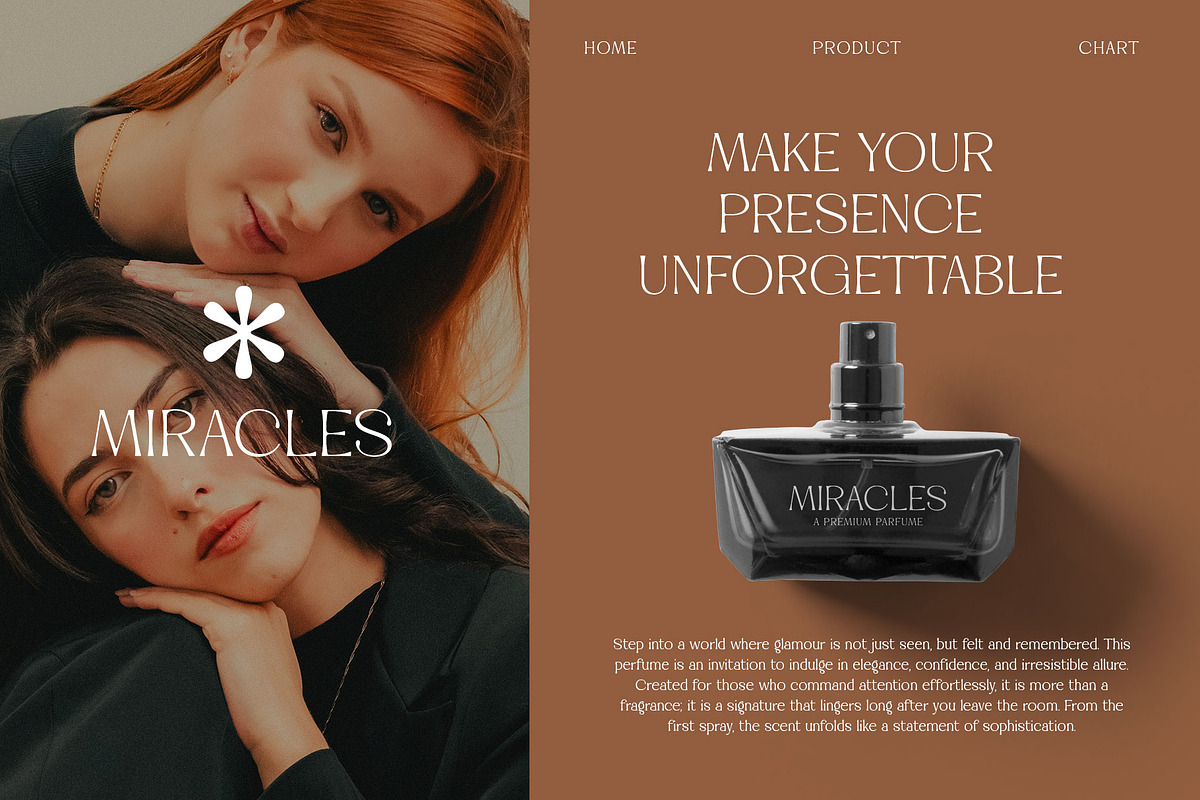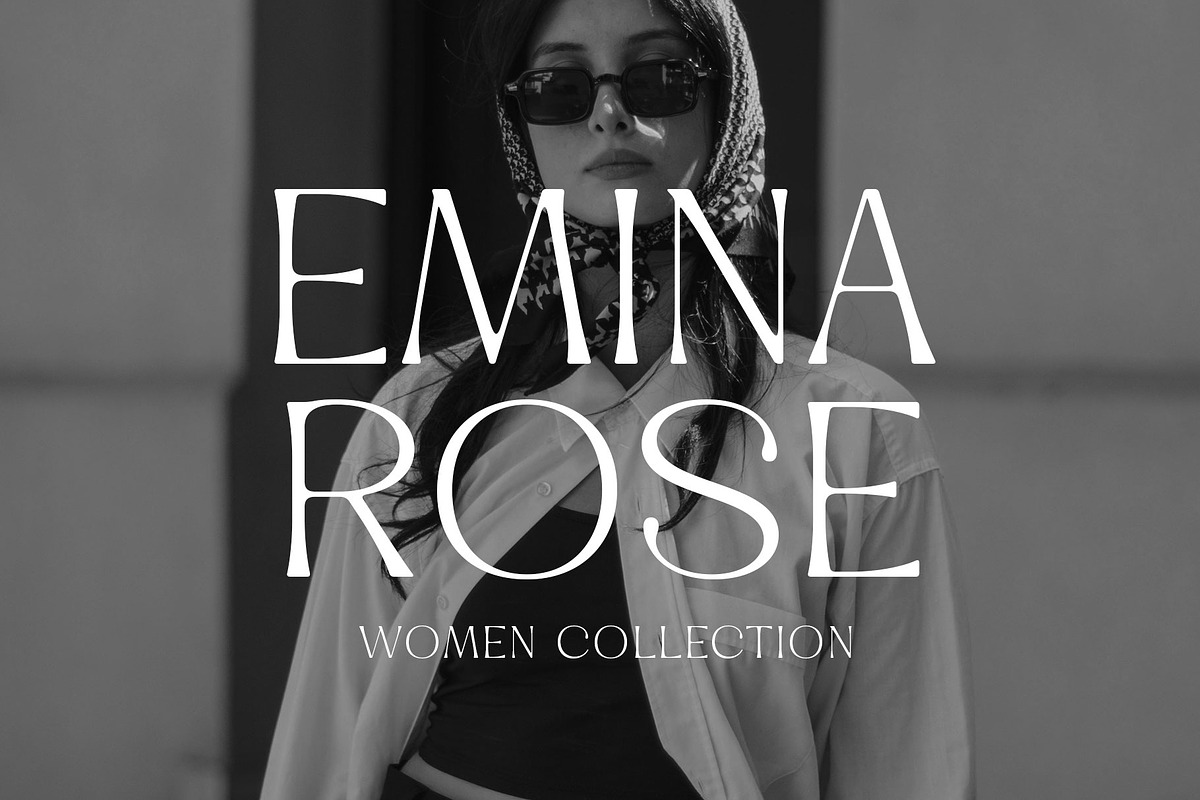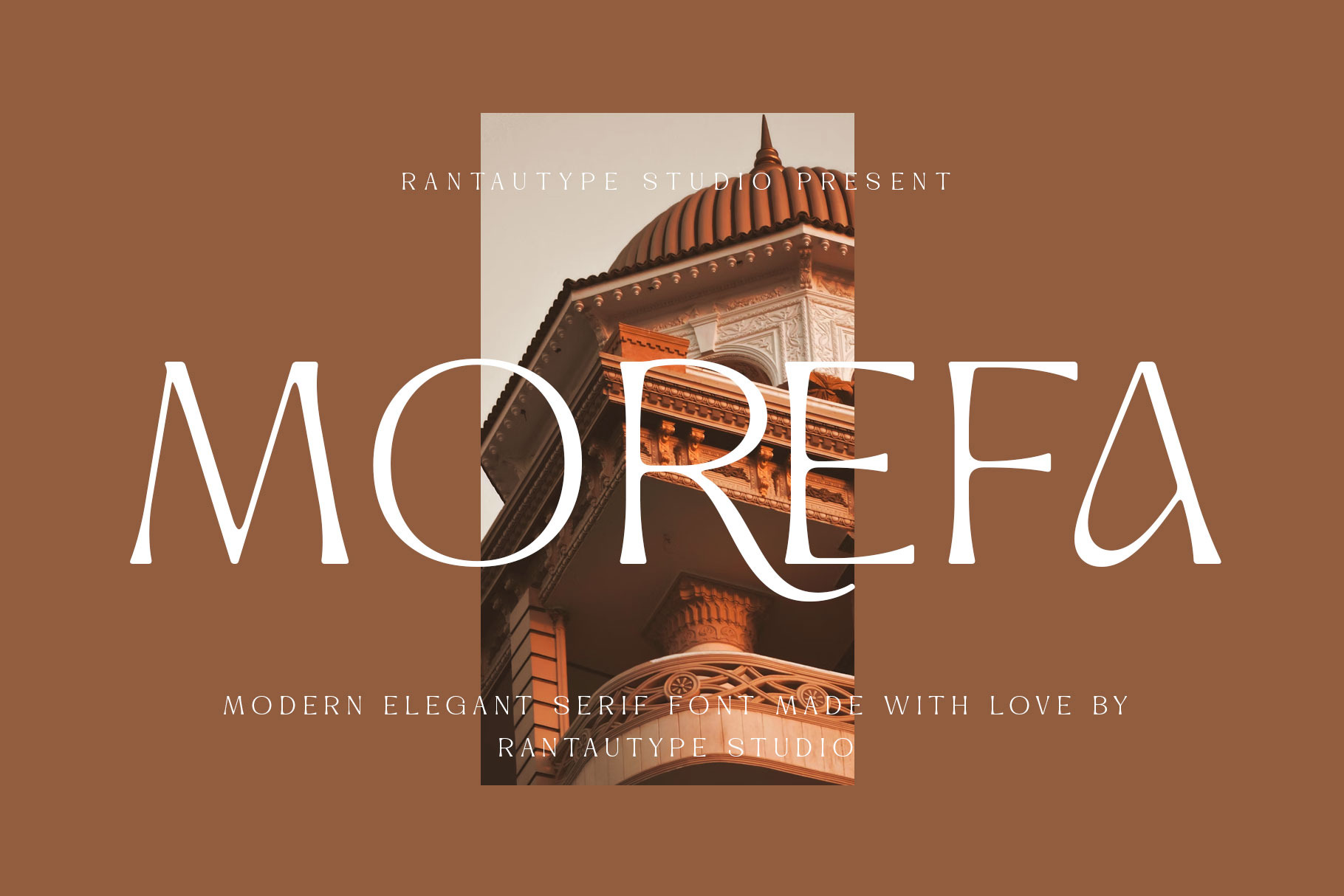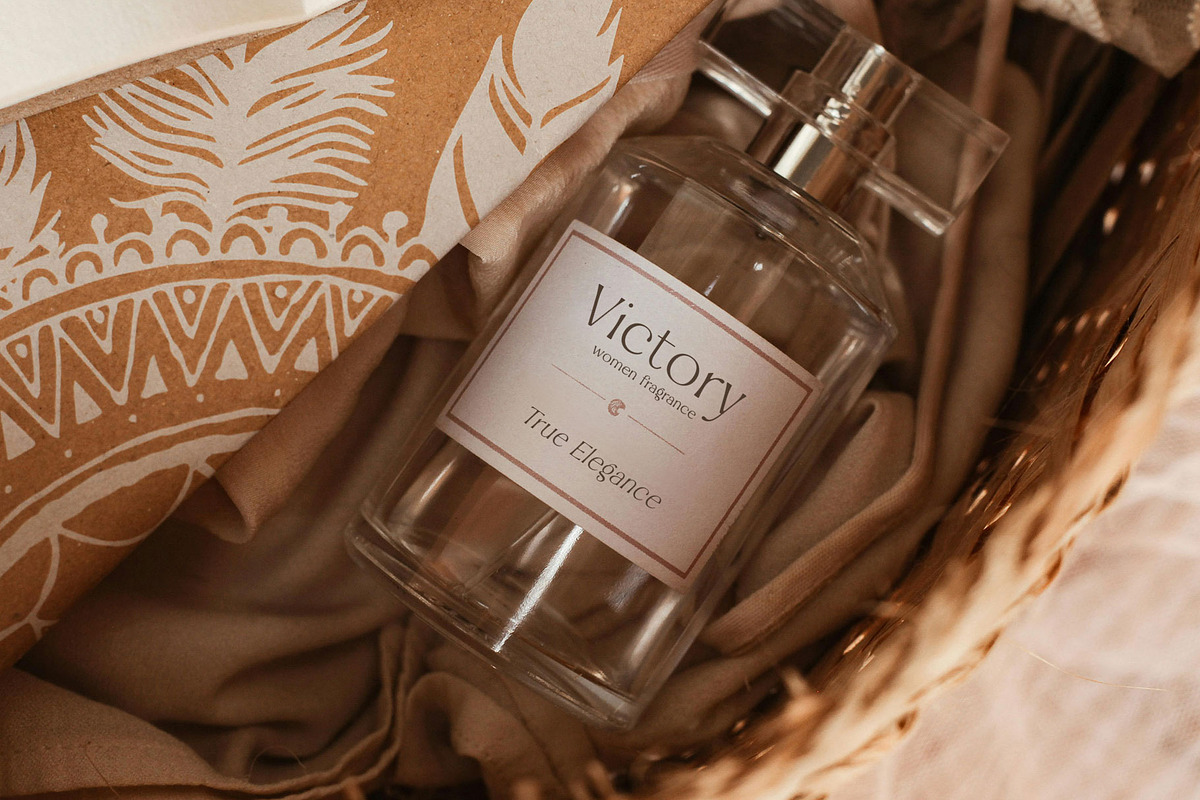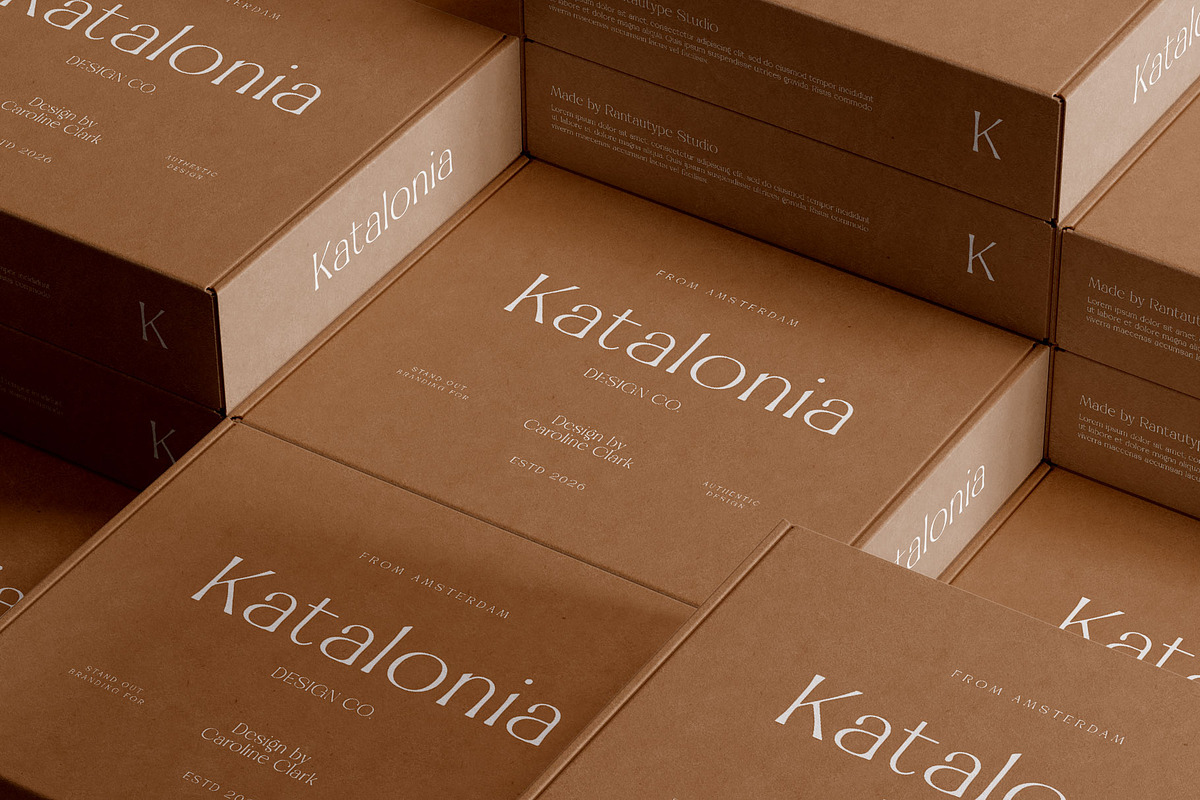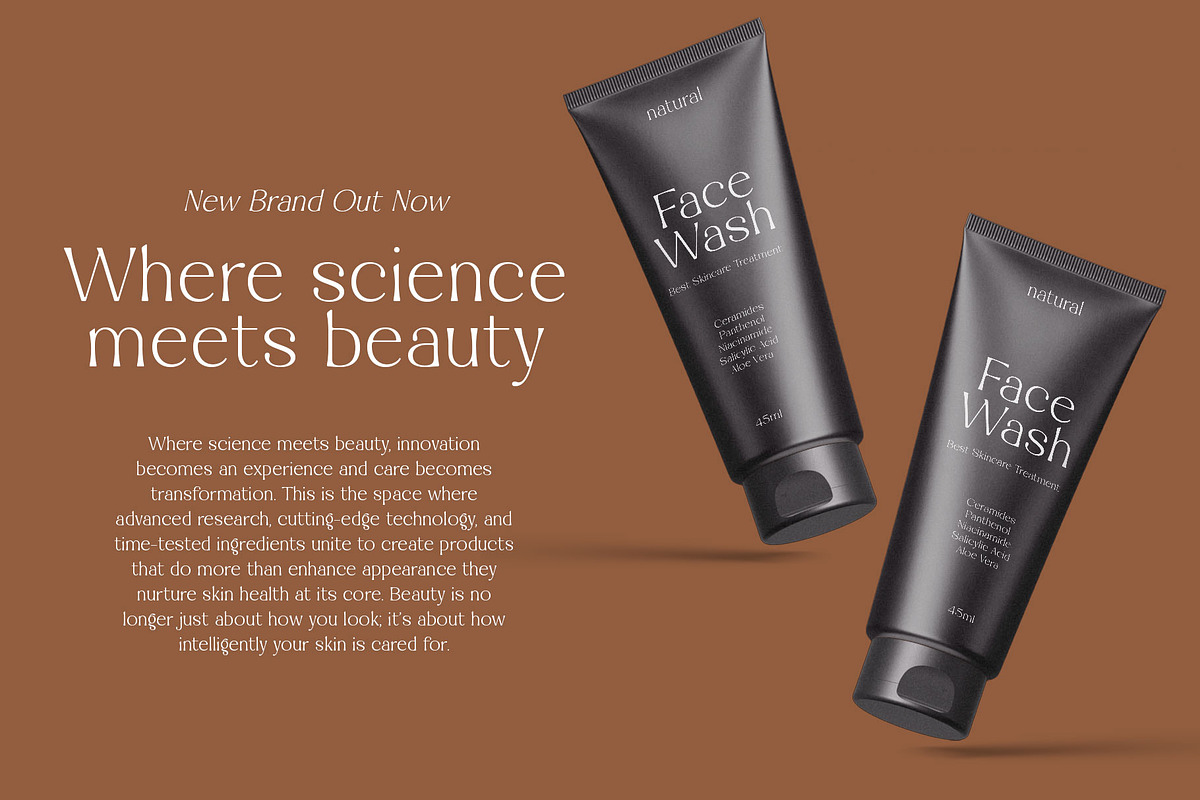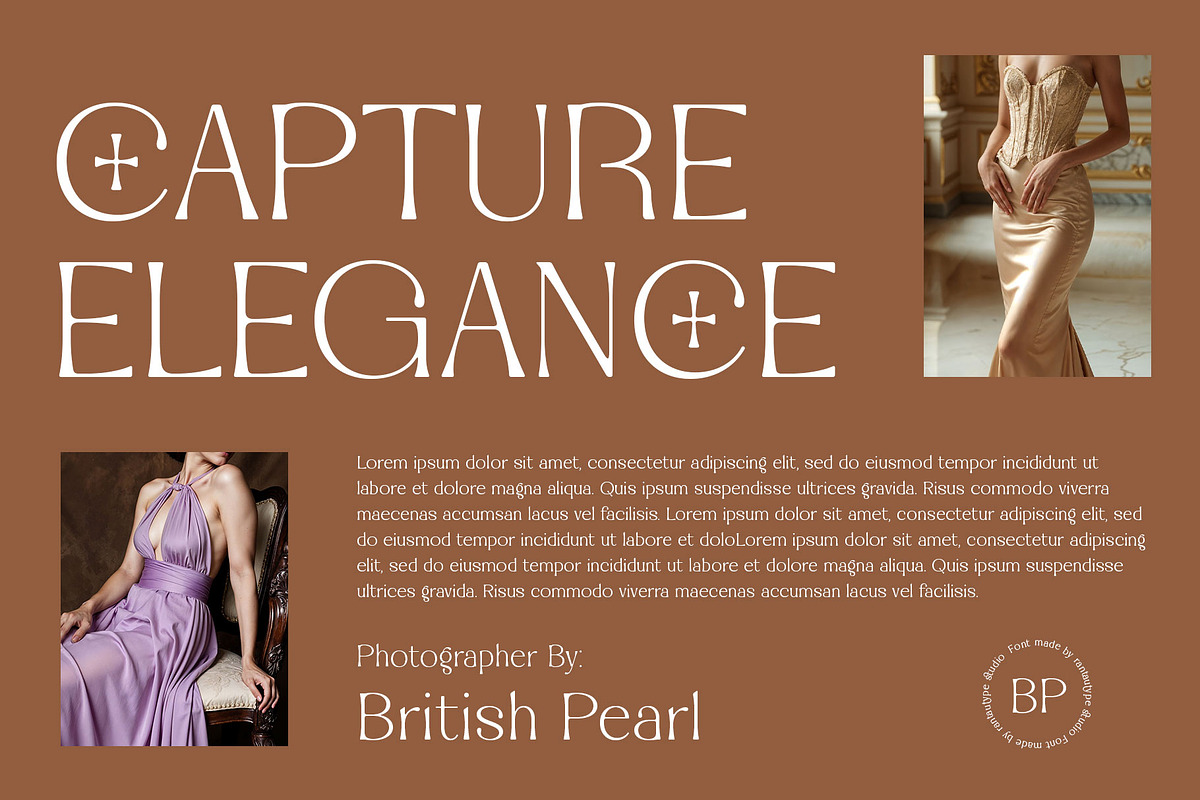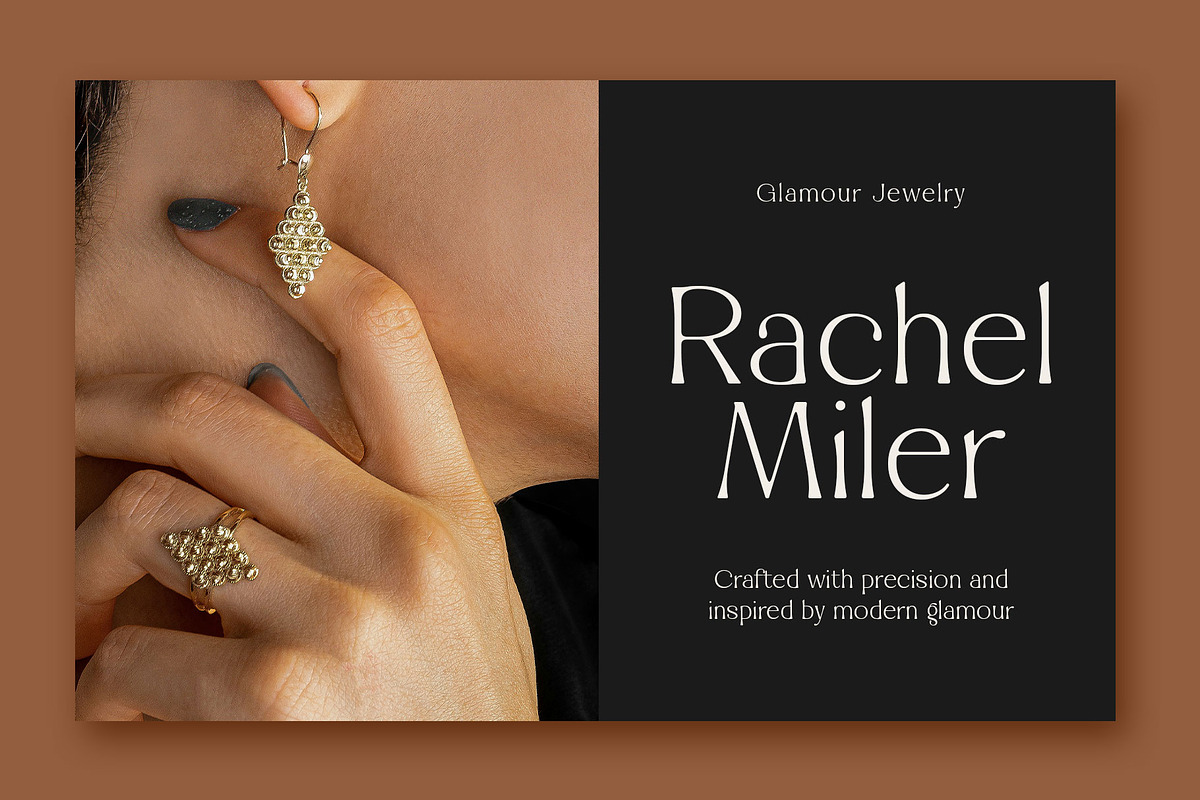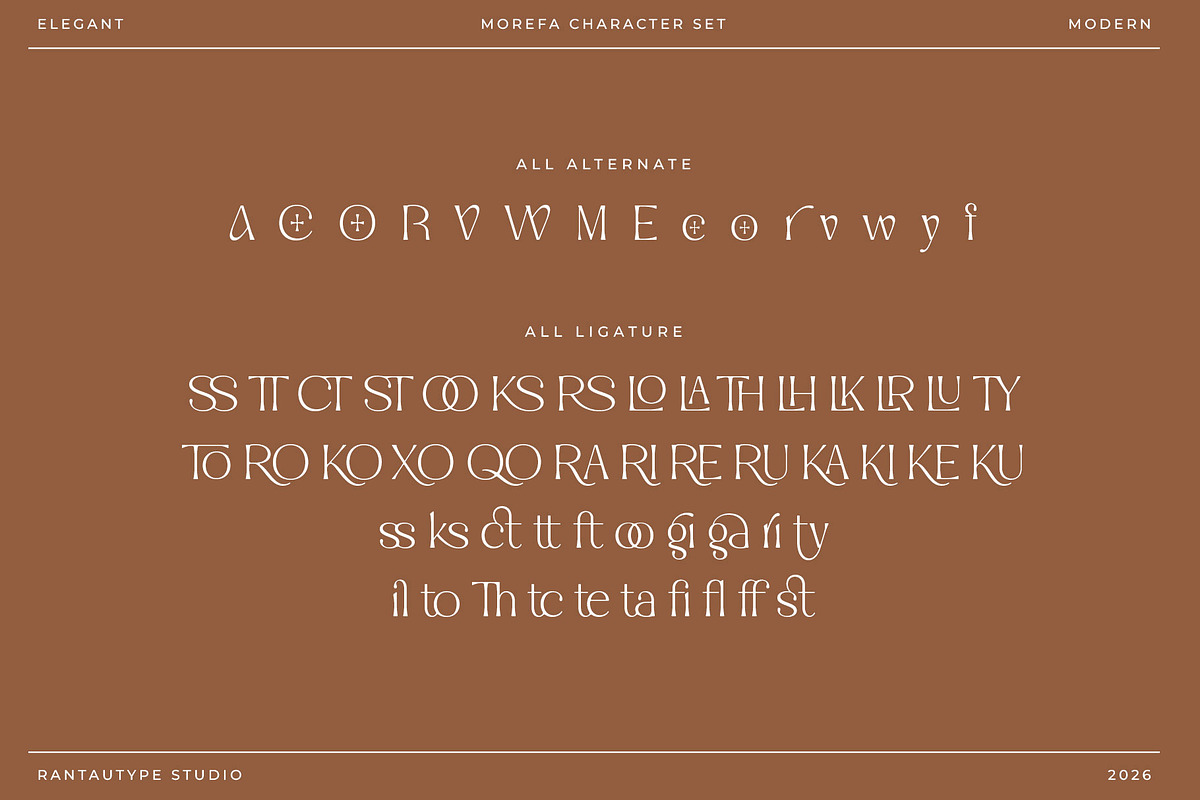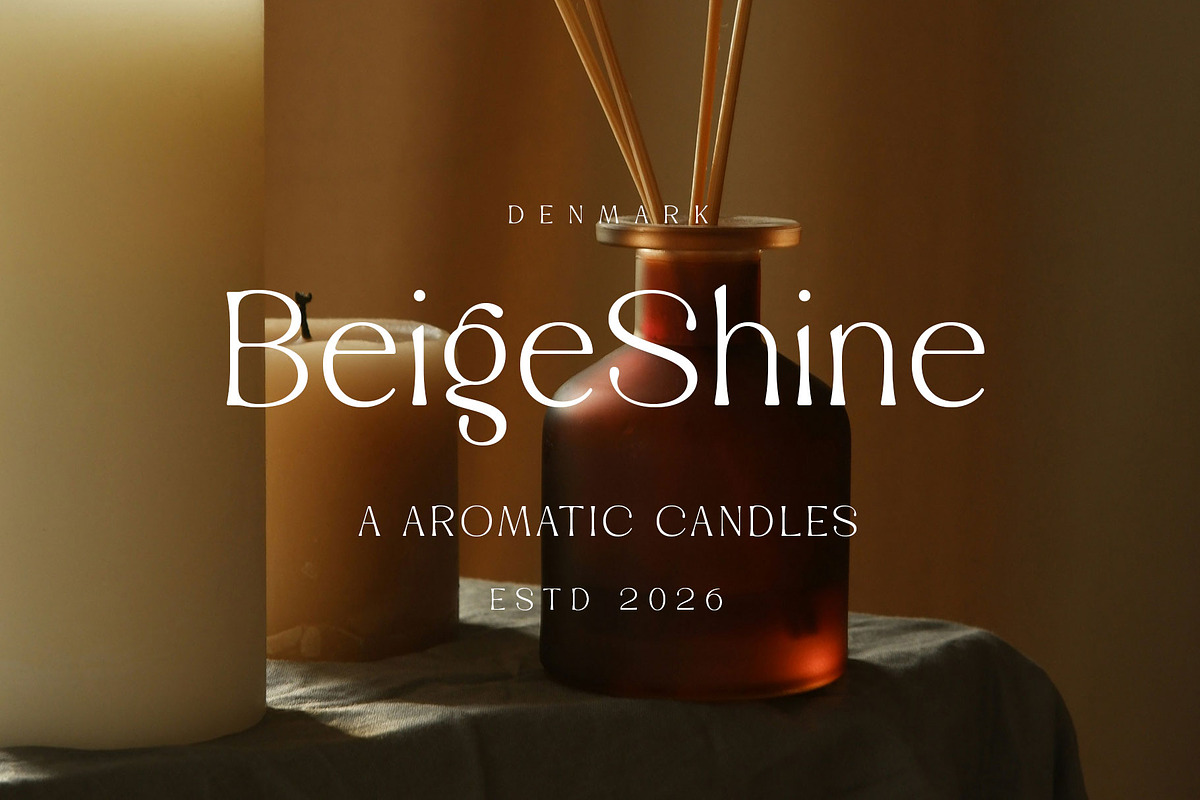
Morefa Modern Elegant Serif Font
Morefa is elegant serif font with aesthetic shape. Morefa is a perfectly choice for any creative endeavor, creating, modern, lifestyle design such as logotype, title, cover, branding, invitations, wedding designs, display and magazine, social media posts, advertisements, printed quotes, product packaging, corporate brand, product designs, labels, photography, watermarks, special events and any other project with modern touch.
- Alternate and ligature